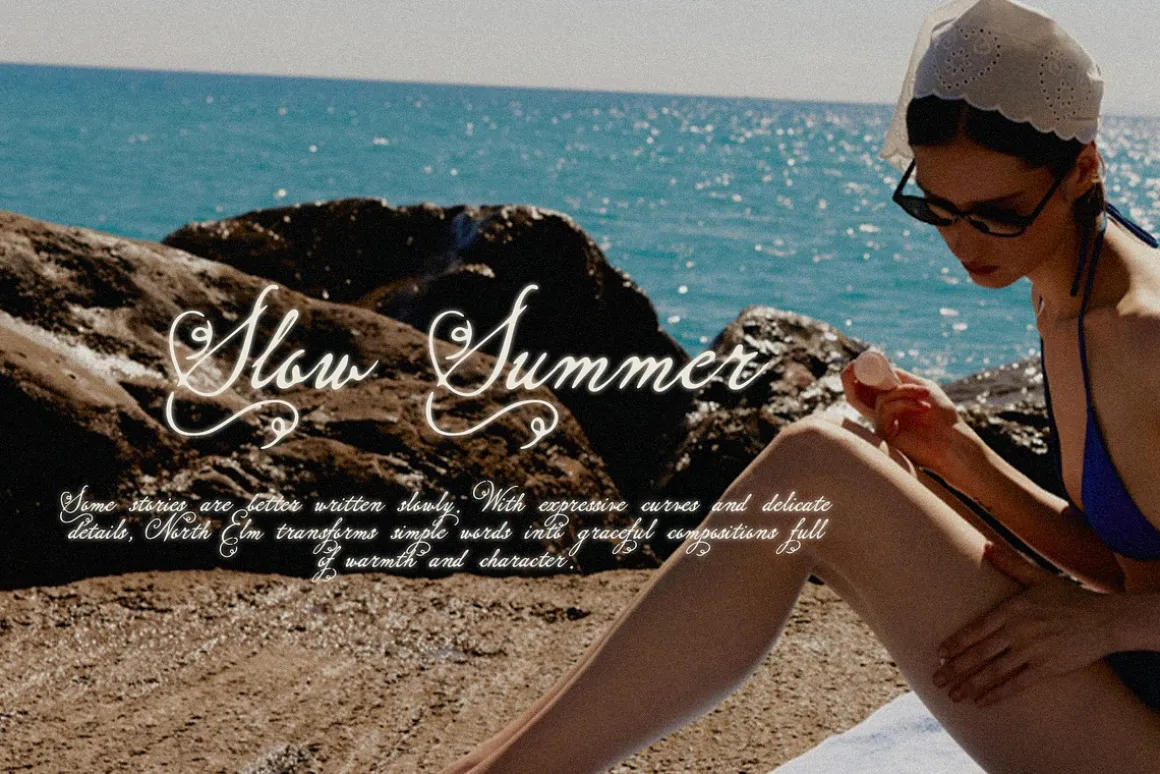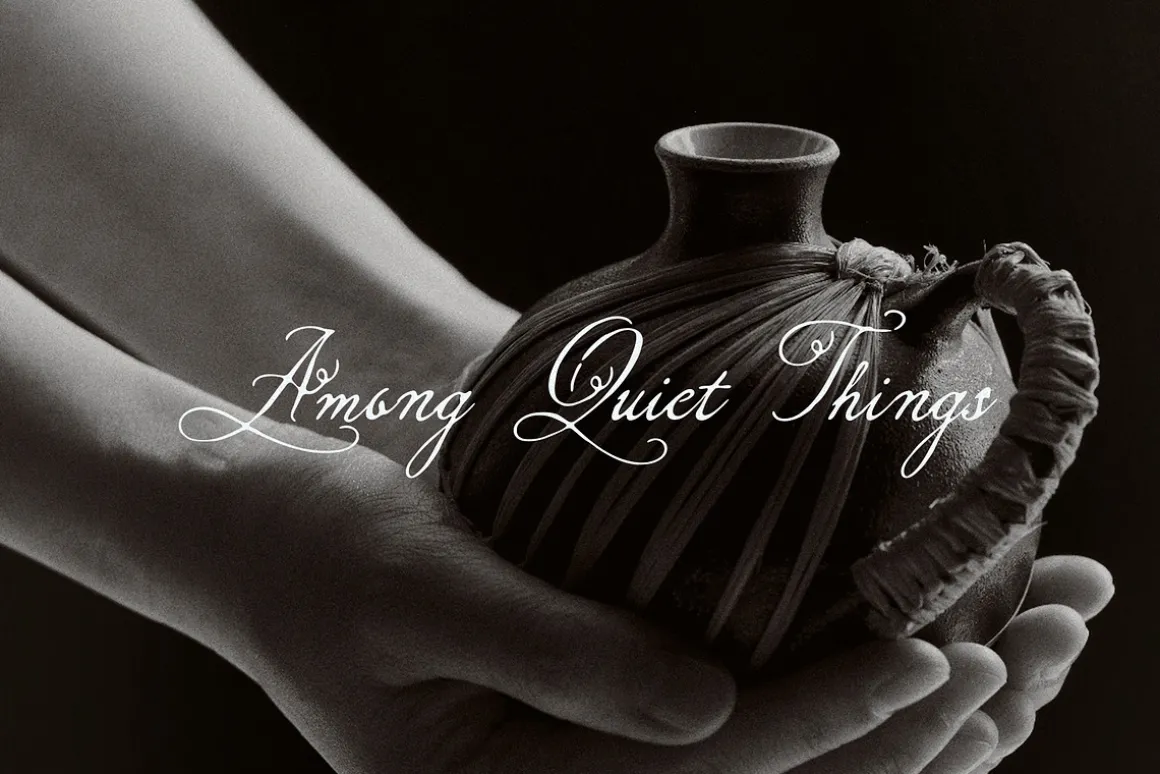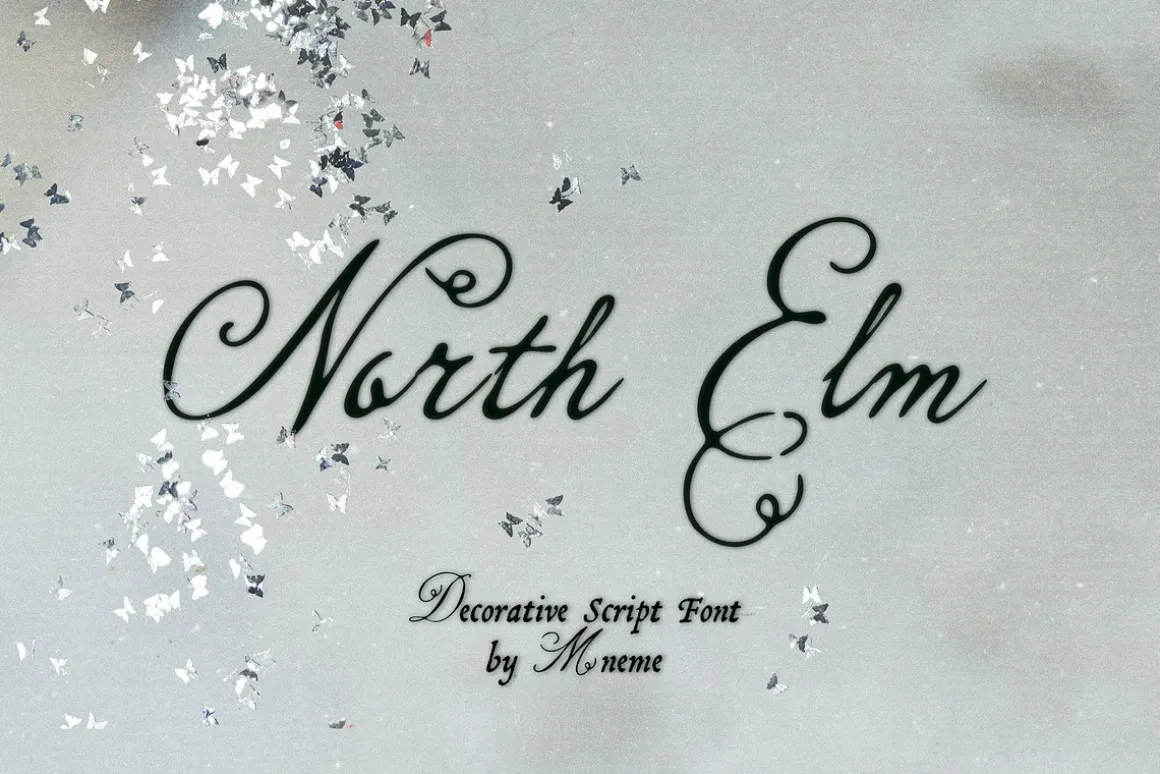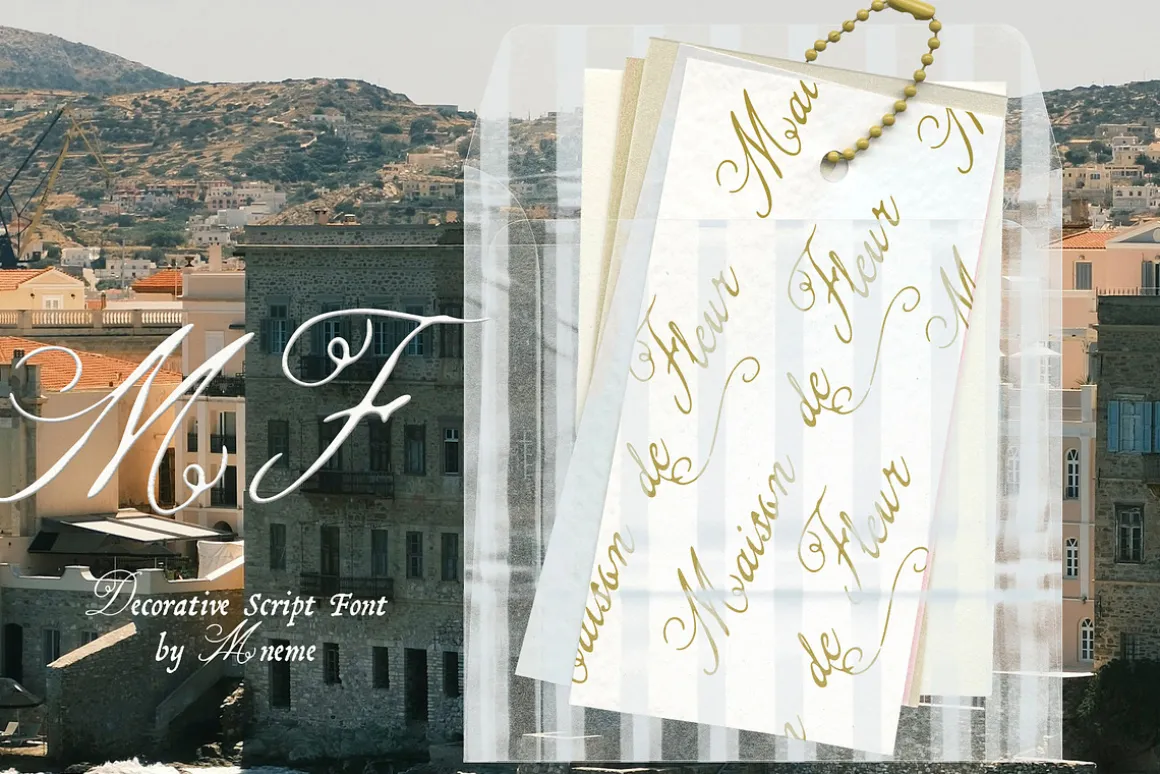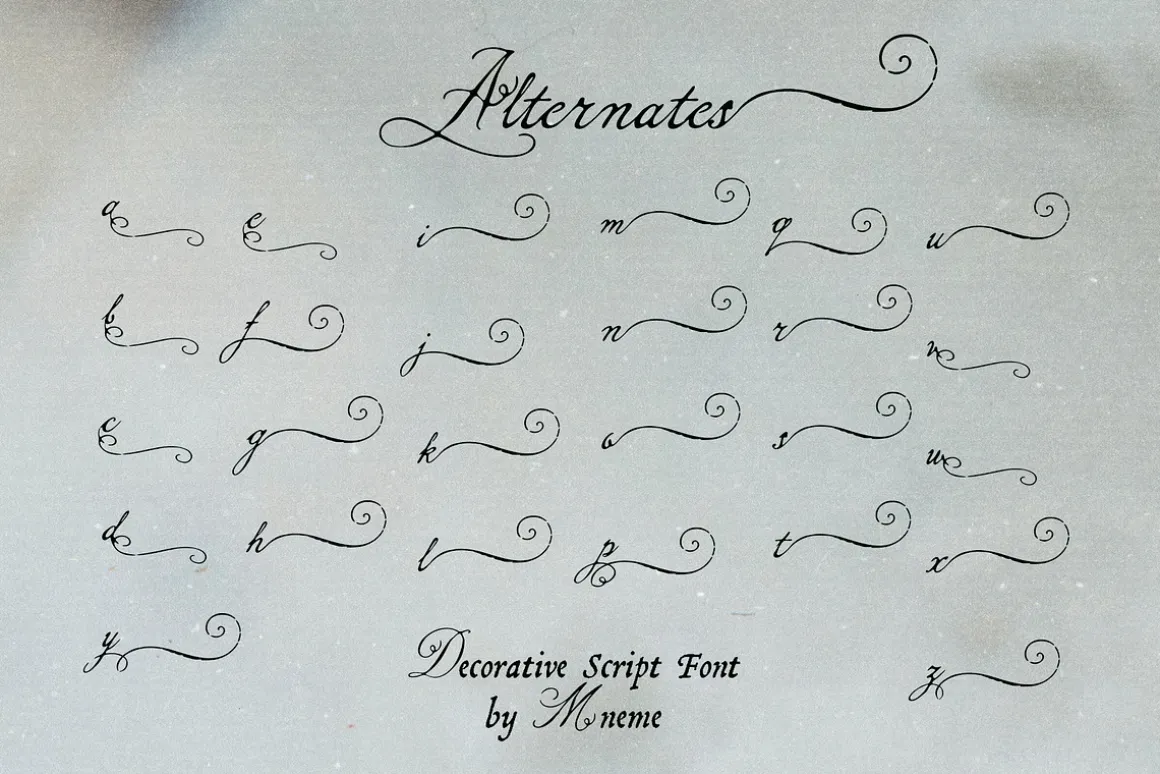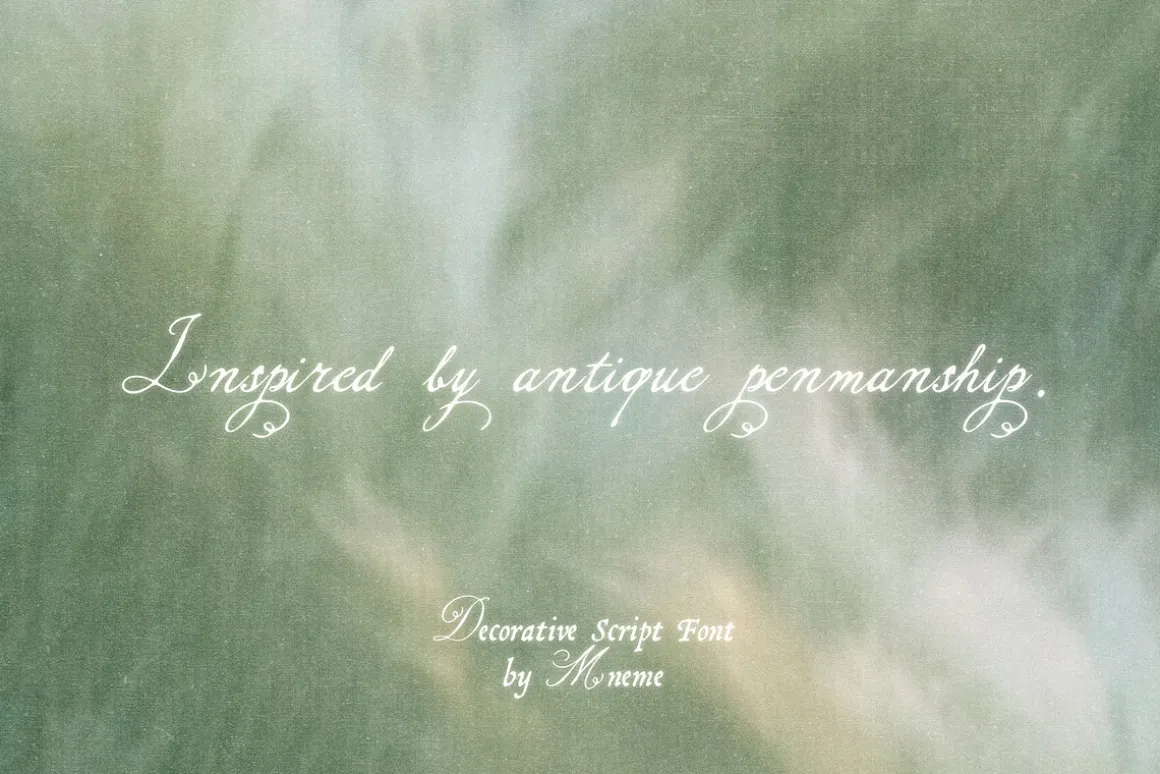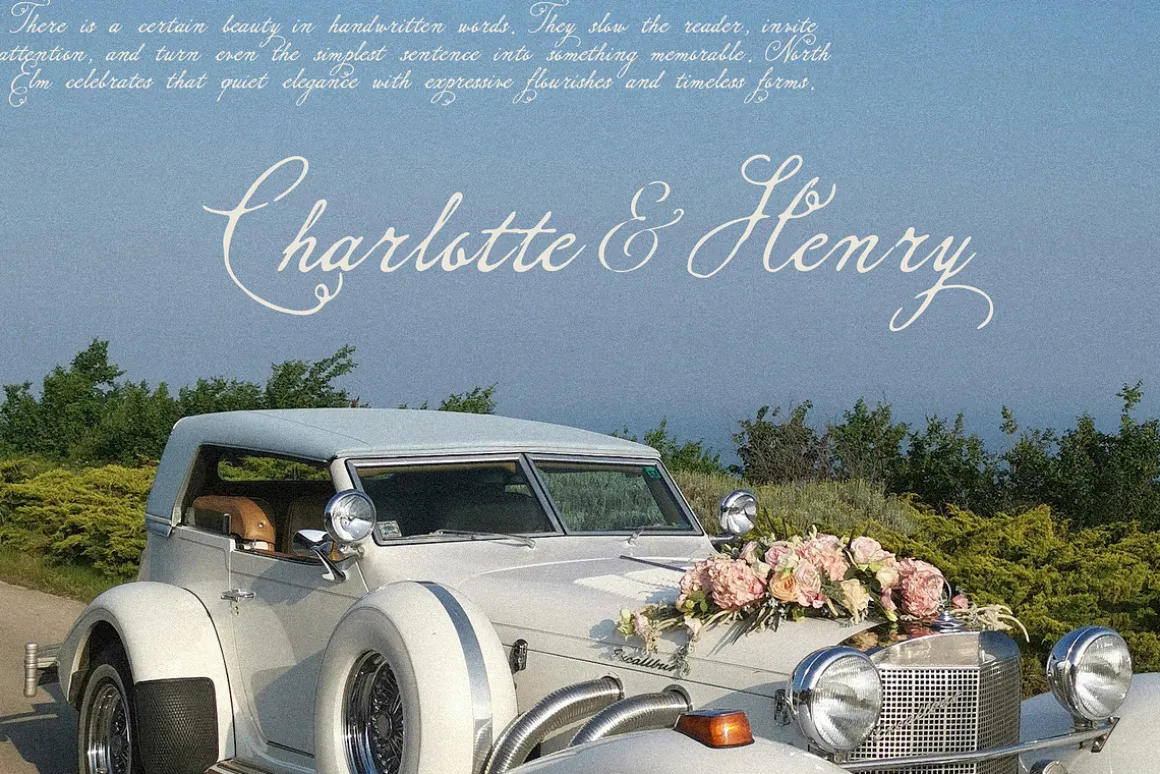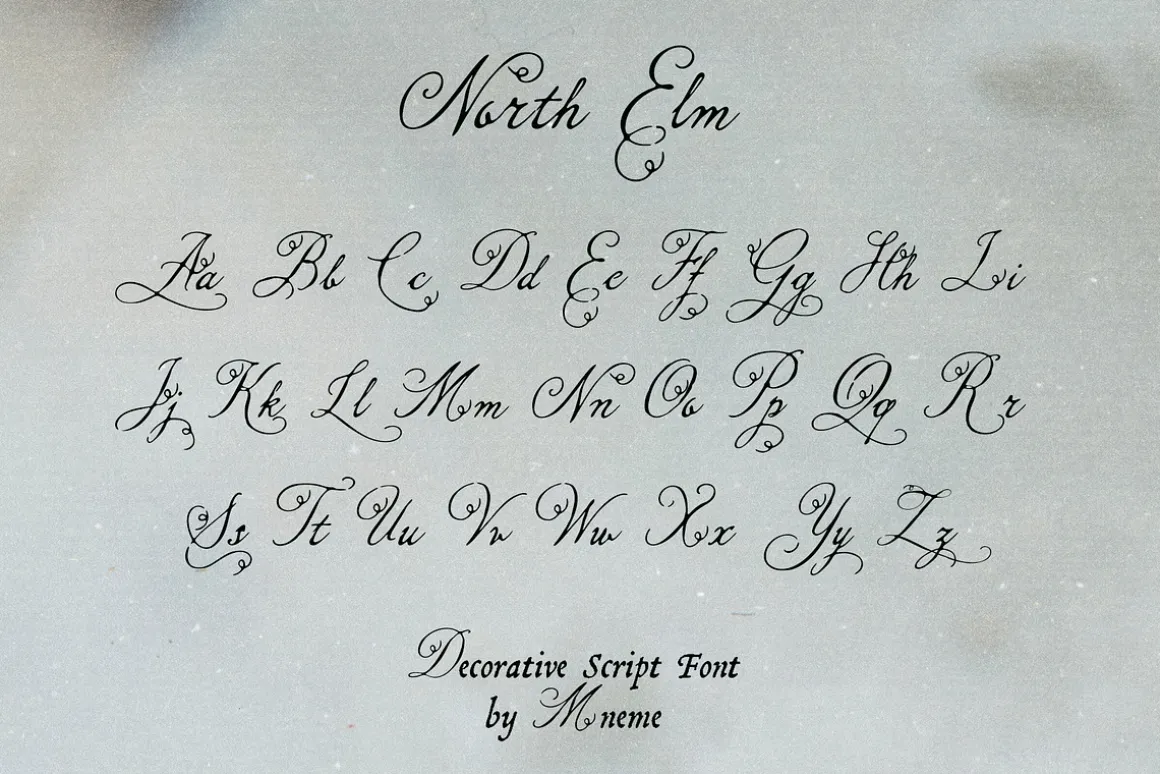
North Elm is an elegant decorative script font inspired by antique penmanship, vintage correspondence, and timeless editorial typography. Featuring graceful flourishes, expressive alternates, and refined letterforms, it is perfect for luxury branding, wedding invitations, logos, packaging, book covers, editorial layouts, social media, and high-end design projects.
The font includes uppercase and lowercase letters, numbers, punctuation, stylistic alternates, multilingual support, and beautifully crafted swashes for creating sophisticated typography with ease.
Whether you’re designing romantic stationery or premium branding, North Elm adds warmth, elegance, and handcrafted character to every composition.